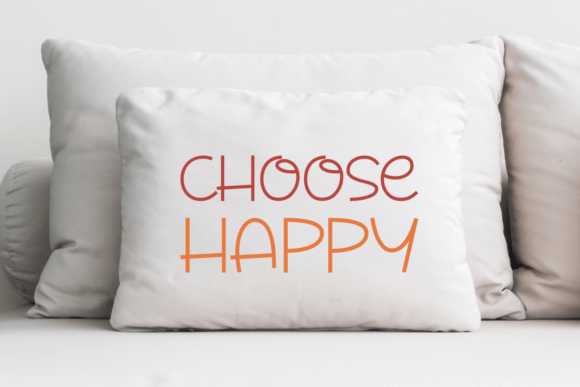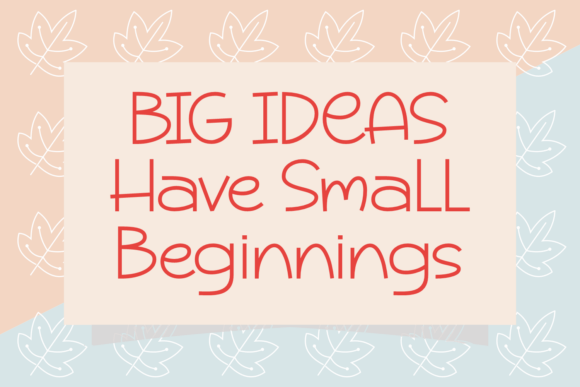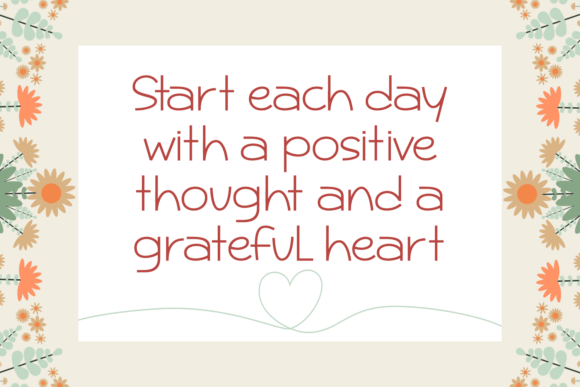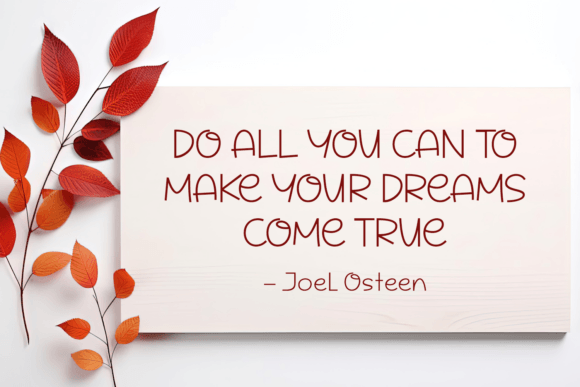
Introduction to Monday Wisdom Font
Monday Wisdom is a casual handwritten font that radiates charm and authenticity.
Its relaxed, flowing strokes evoke a personal touch, making it perfect for journals, quotes, social media posts, and creative projects Bring warmth and spontaneity to your designs with this effortlessly stylish script.